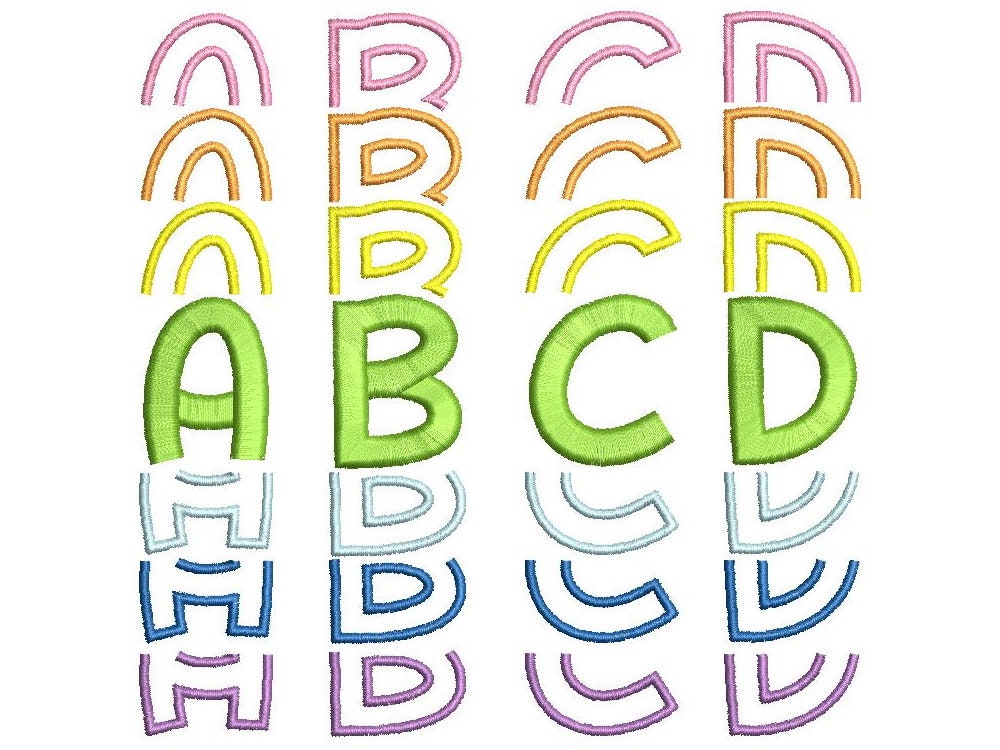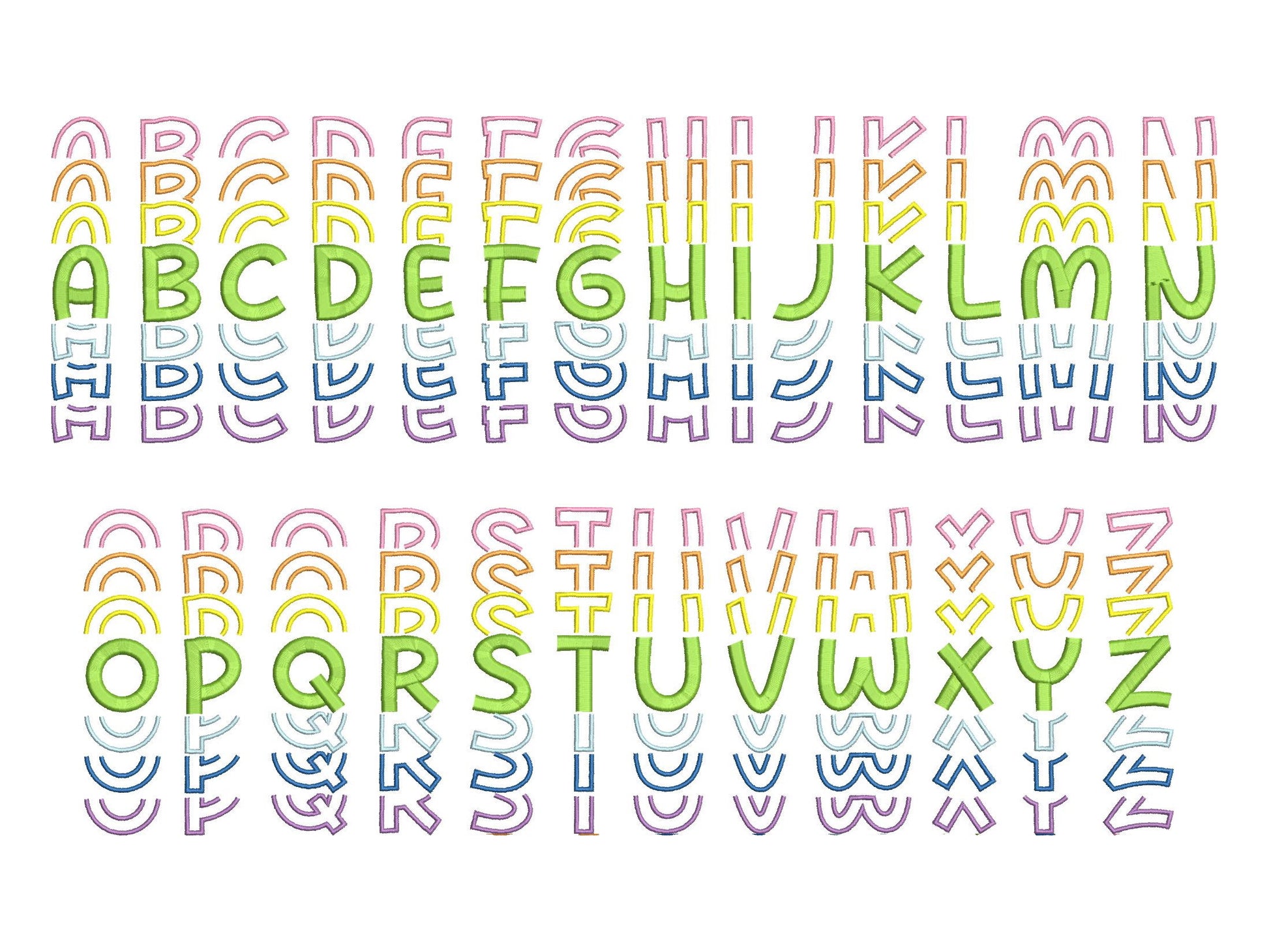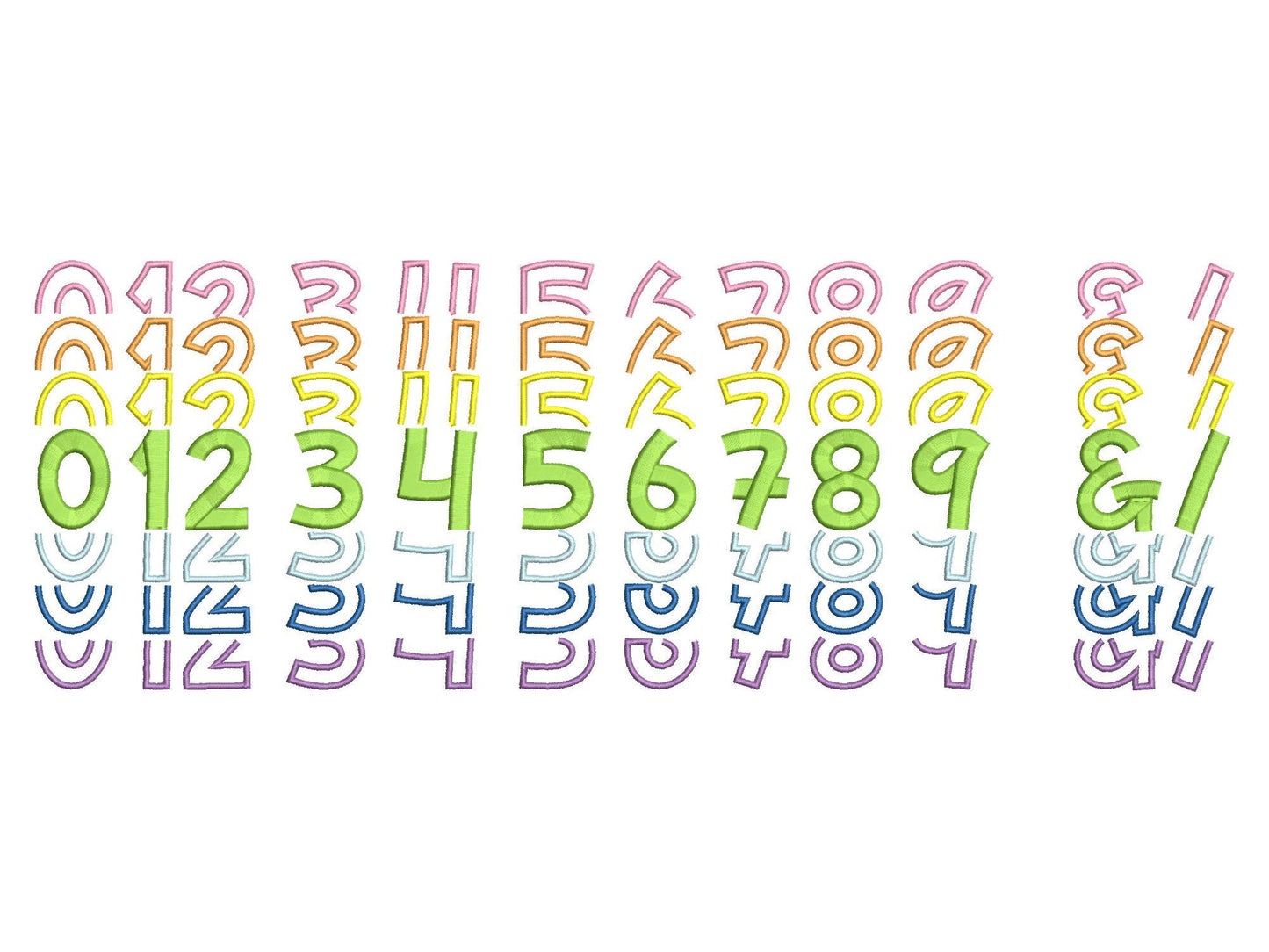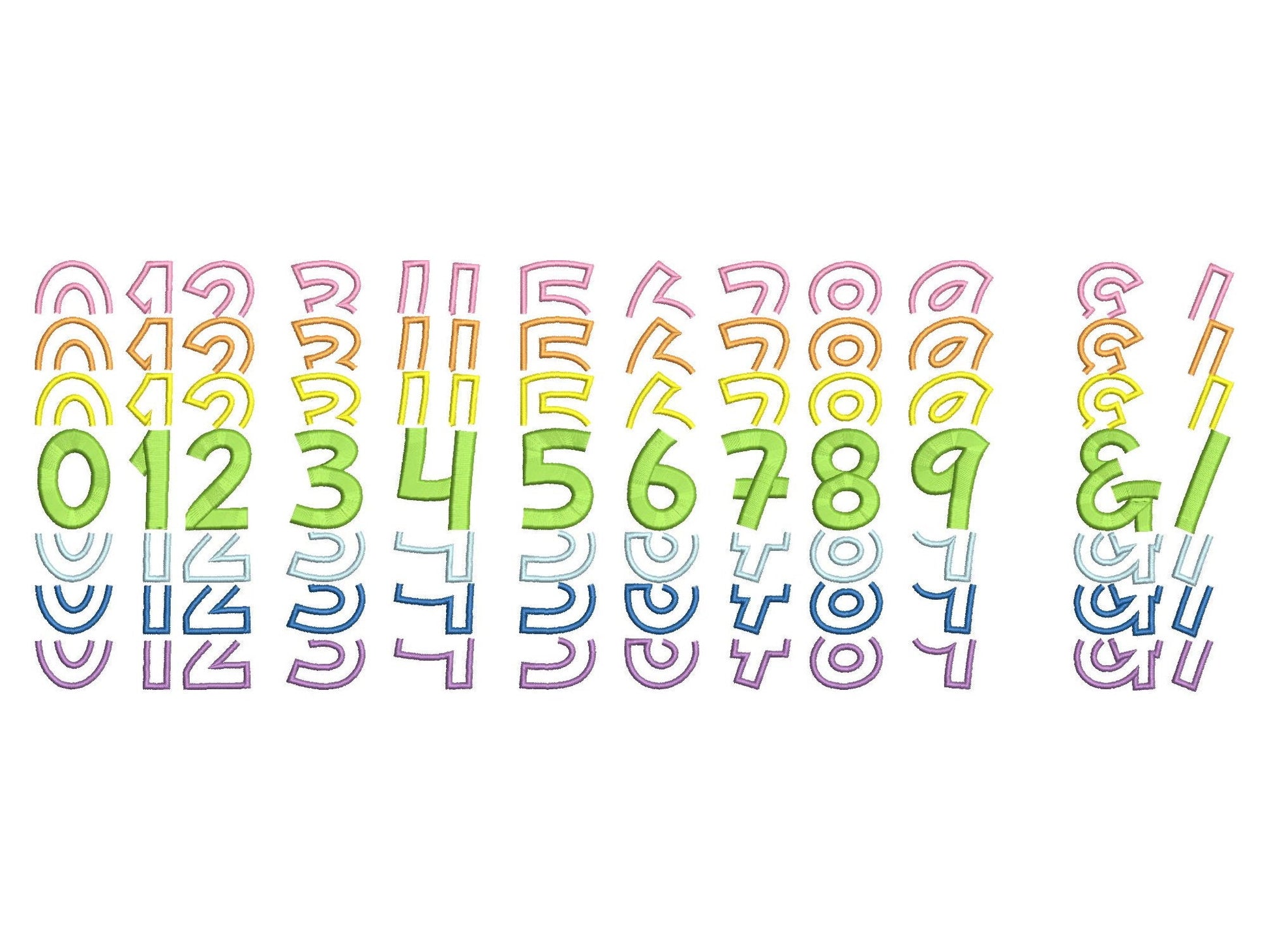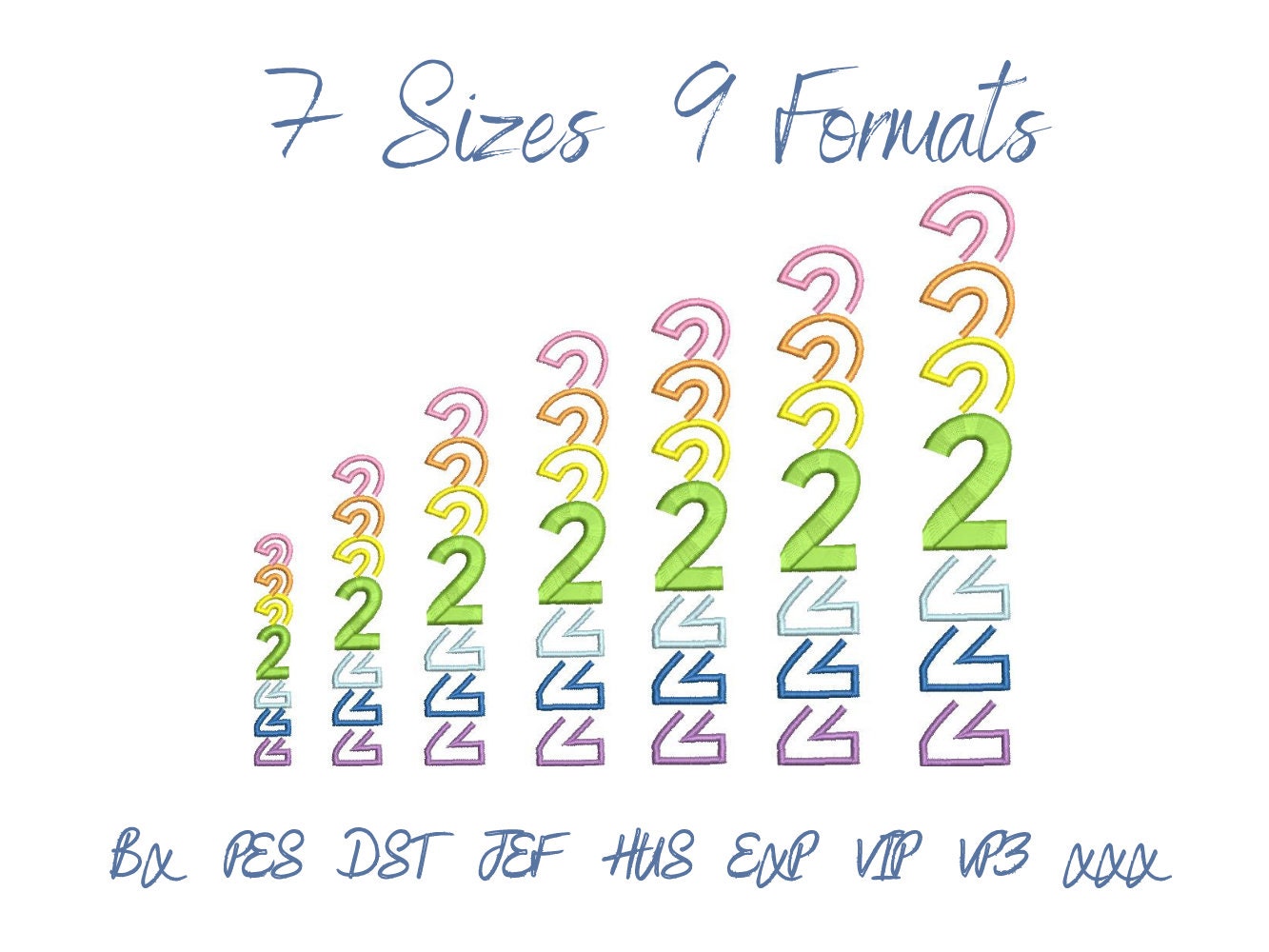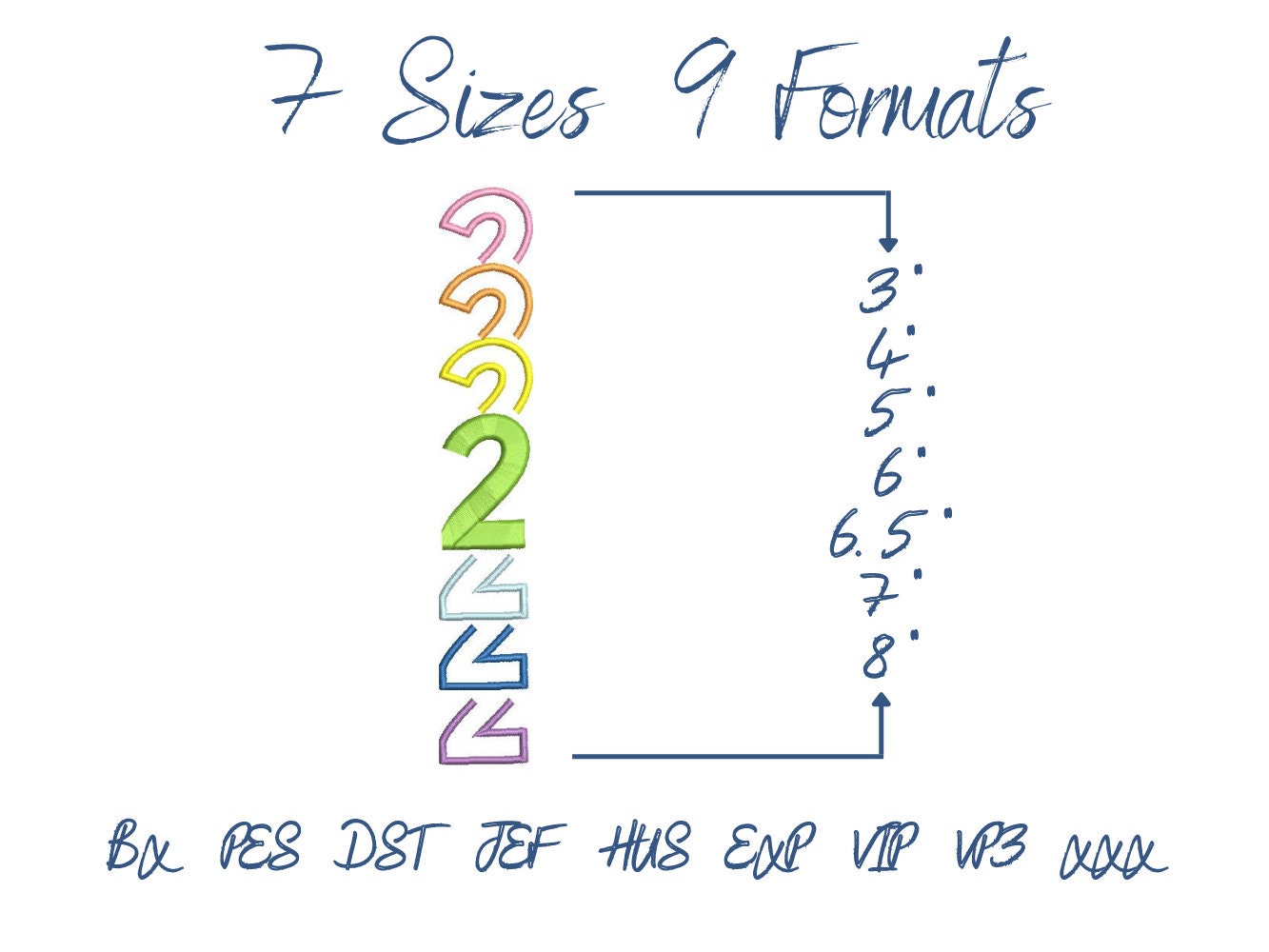
Or click to open the linkA trendy stacked font in satin stitch with an outline, colorful and bold for kids' names and words on shirts and bags.
Uppercase A to Z, numbers 0 to 9, & and / in seven sizes: 3, 4, 5, 6, 6.5, 7 and 8 inches.